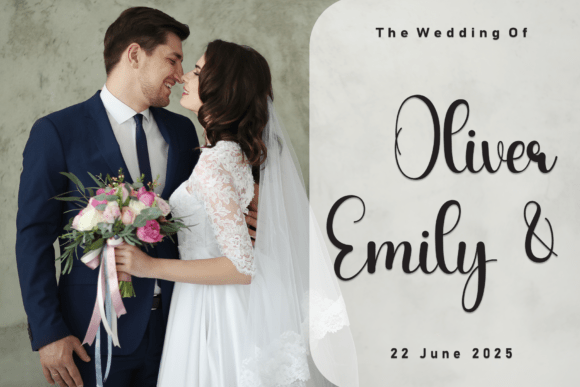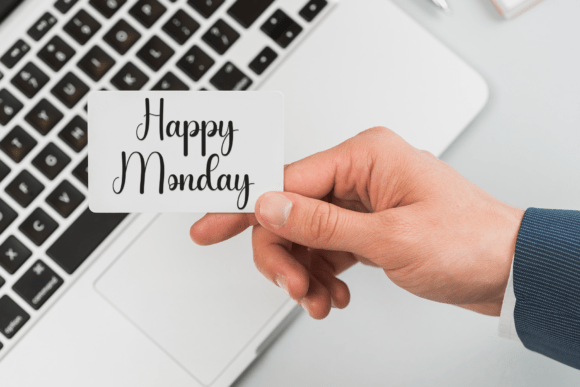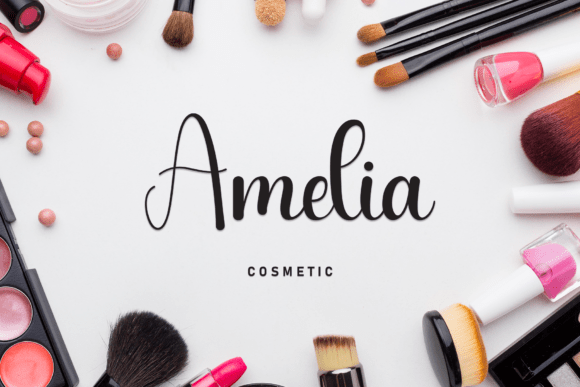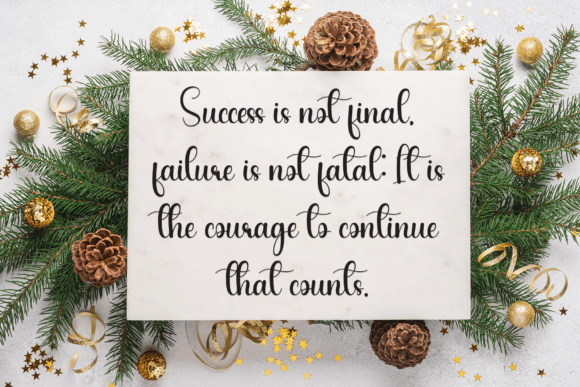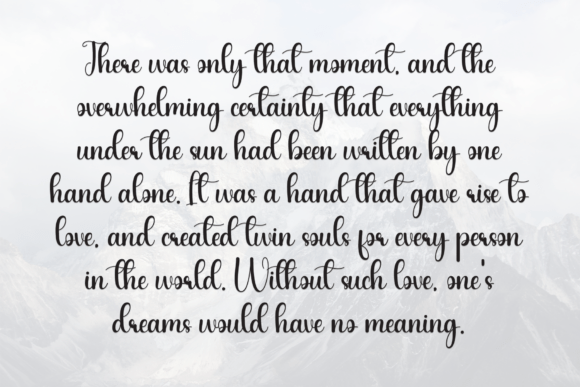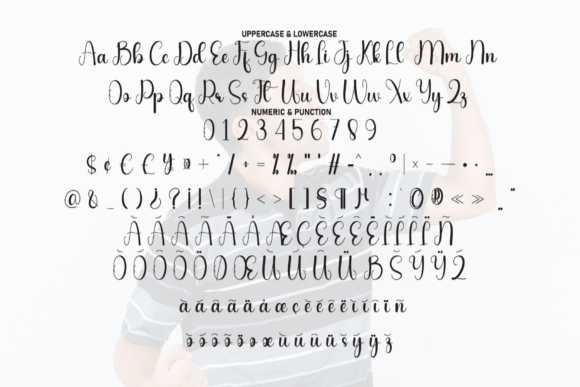
Introducing Amstrong Font: Elevate Your Designs with Fresh Elegance
Are you searching for a font that embodies the essence of renewal and sophistication? Look no further than Amstrong Font, a stylish handwritten script font that radiates fresh elegance and delicate charm. With its flowing strokes and graceful curves, Amstrong is perfect for designers and crafters seeking to add a touch of luxury and whimsy to their projects.
The Characteristics of Amstrong Font
Amstrong Font boasts a range of characteristics that make it an ideal choice for various design applications. Its handwritten script style gives it a personal and approachable feel, while its elegant strokes and curves evoke a sense of sophistication and refinement. The font’s flowing lines and delicate charm make it perfect for creating beautiful invitations, branding materials, and seasonal designs.
Perfect for Invitations and Branding
Amstrong Font is an excellent choice for designing invitations, whether it’s for a wedding, baby shower, or any other special occasion. Its elegant and refined style adds a touch of luxury to your designs, making them truly unforgettable. Additionally, Amstrong’s unique character makes it an excellent choice for branding and packaging design, allowing businesses to stand out from the competition and establish a distinctive identity.
Seasonal Designs and Beyond
Amstrong Font’s fresh and elegant style makes it perfect for seasonal designs, including holiday cards, Easter invitations, and summer-themed branding. However, its versatility extends far beyond seasonal designs. Amstrong can be used for a wide range of projects, including:
- Marketing materials and brochures
Why Choose Amstrong Font?
- Unique and eye-catching design: Amstrong Font’s elegant and refined style sets it apart from other fonts, making it perfect for designers and crafters seeking to create unique and memorable designs.
- Versatile and adaptable: Amstrong Font can be used for a wide range of projects, from invitations and branding to seasonal designs and beyond.
- Easy to read and understand: Despite its elegant and refined style, Amstrong Font remains easy to read and understand, making it perfect for body text and headlines.
Tips for Using Amstrong Font
- Pair with complementary fonts: Amstrong Font pairs beautifully with a range of fonts, including sans-serif and serif fonts. Experiment with different combinations to find the perfect pairing for your project.
- Use for headlines and titles: Amstrong Font’s elegant and refined style makes it perfect for headlines and titles. Use it to add a touch of luxury and sophistication to your designs.
- Experiment with colors and textures: Amstrong Font looks stunning in a range of colors and textures. Don’t be afraid to experiment and find the perfect combination for your project.
Amstrong Font is a stylish handwritten script font that radiates fresh elegance and delicate charm. With its flowing strokes and graceful curves, Amstrong is perfect for designers and crafters seeking to add a touch of luxury and whimsy to their projects. Whether you’re designing invitations, branding materials, or seasonal designs, Amstrong Font is an excellent choice. So why wait? Download Amstrong Font today and elevate your designs to the next level!